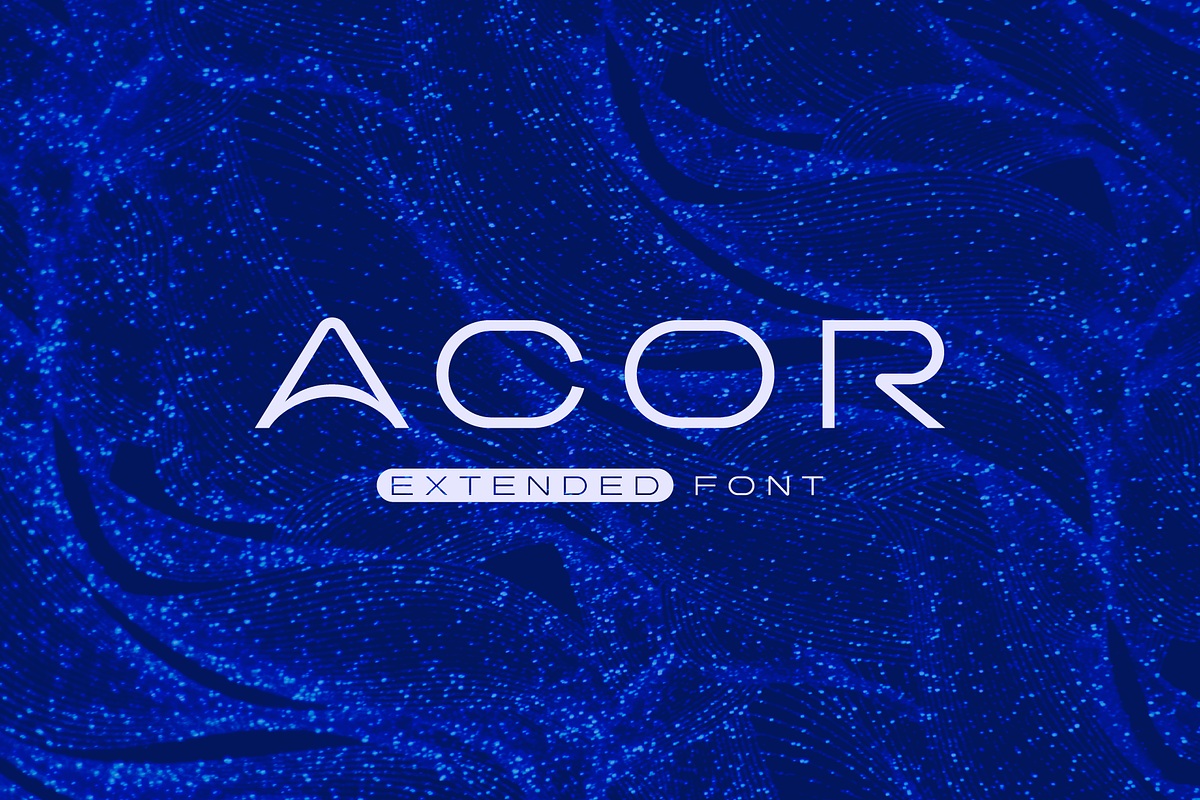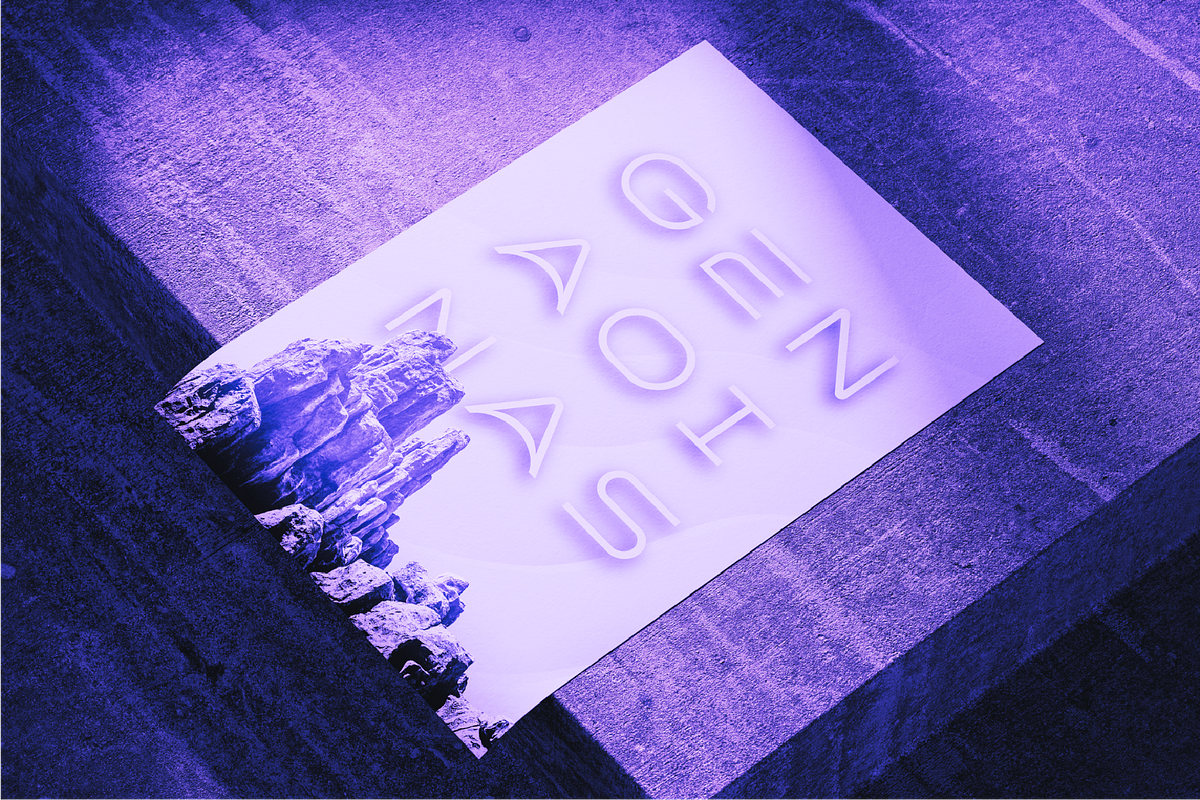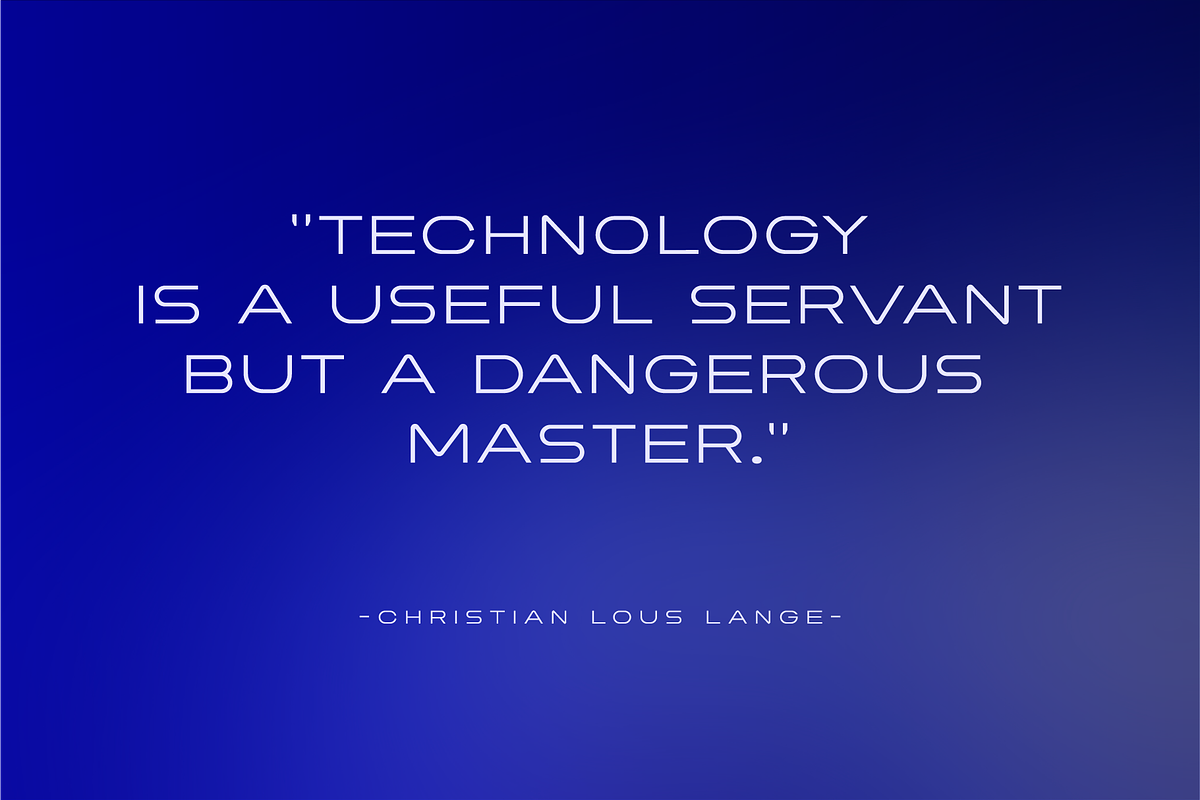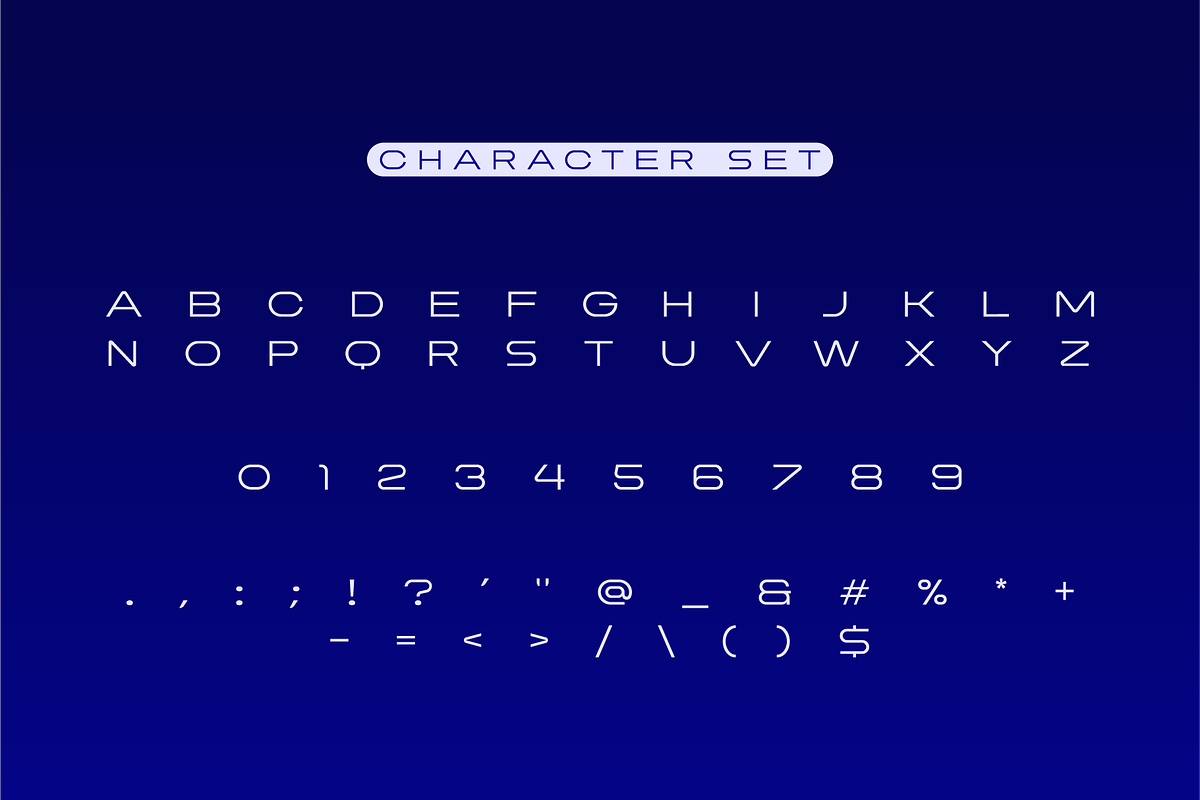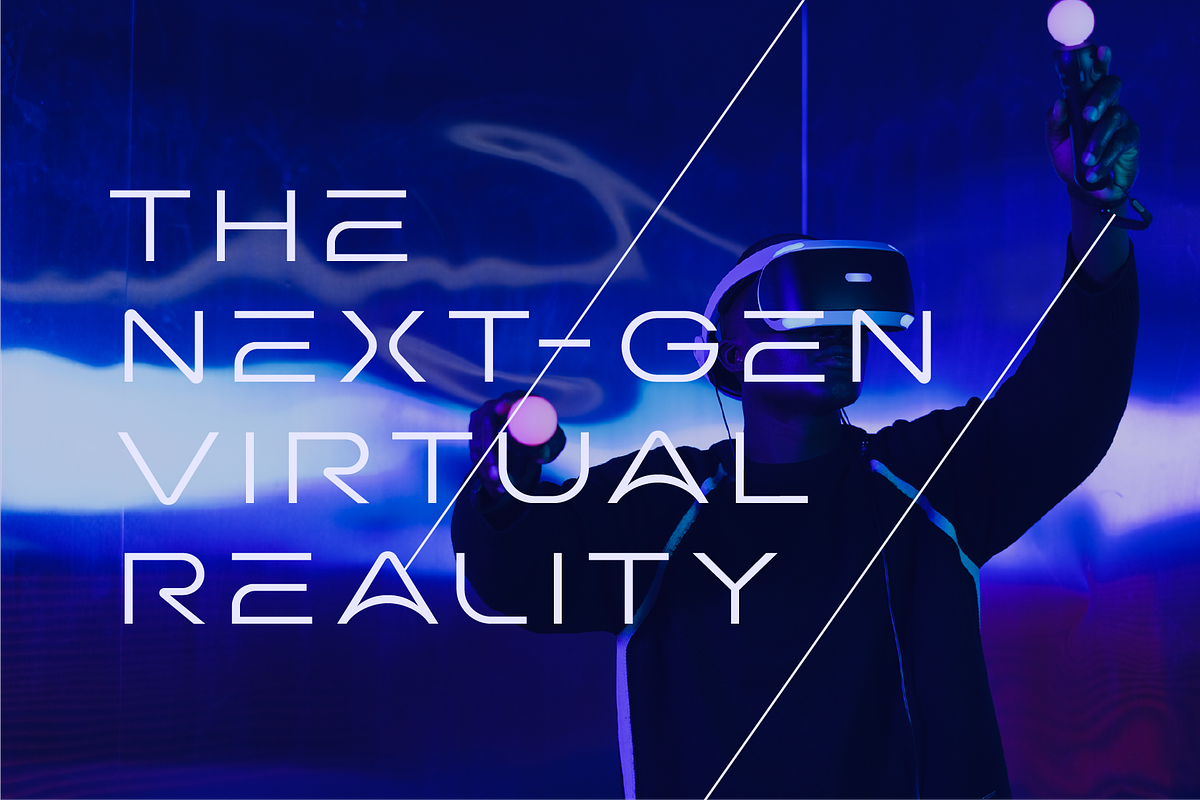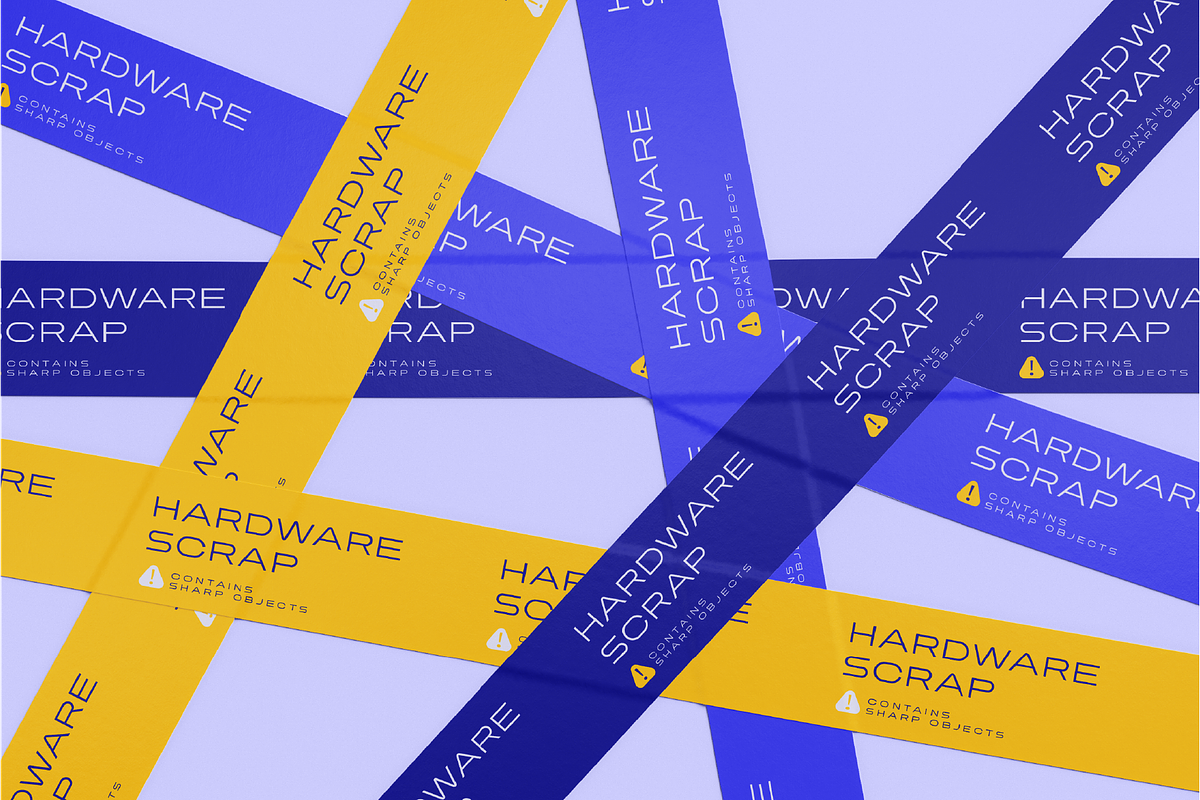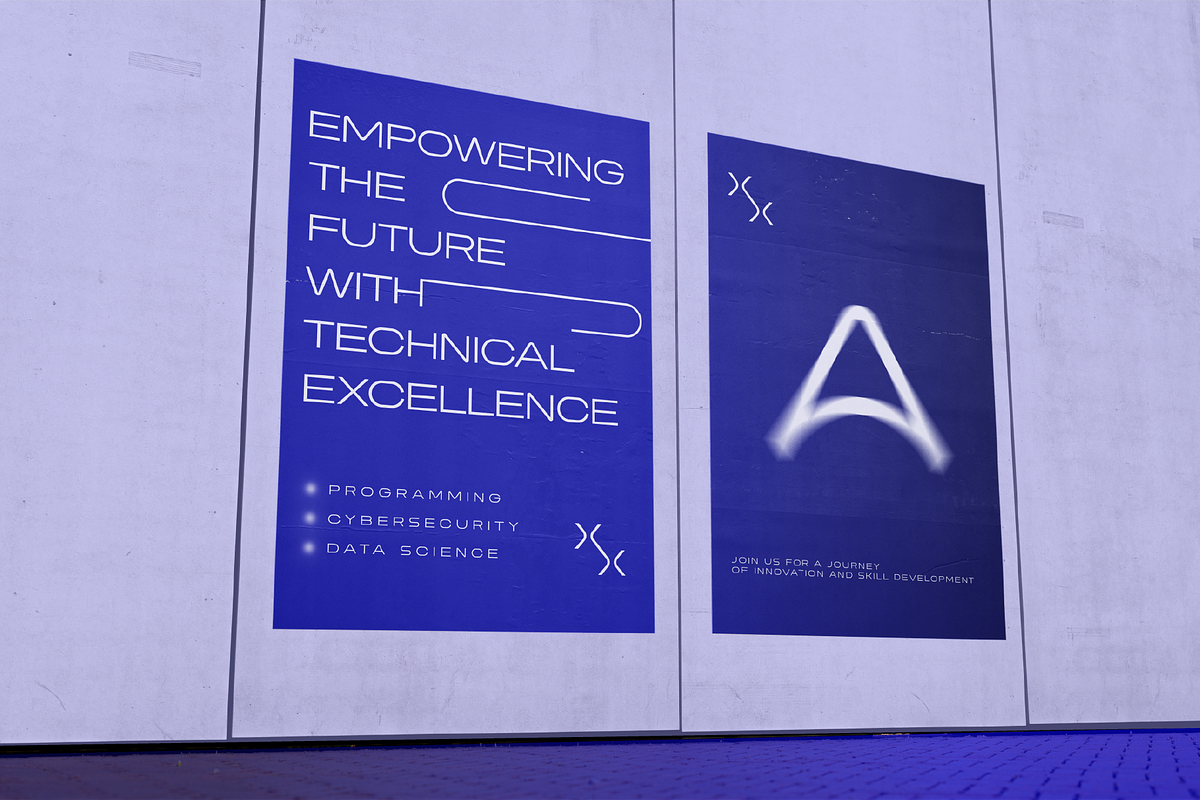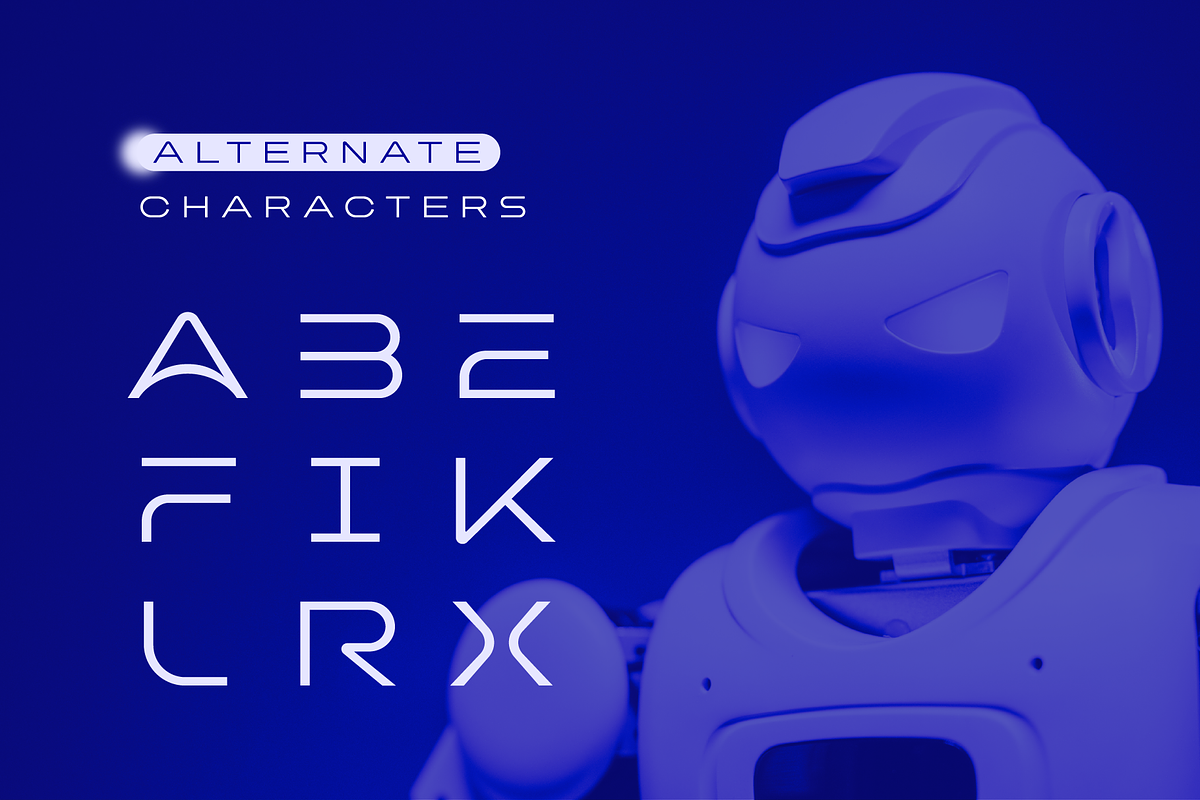
Acor Futuristic Clean Extended Font
Acor Extended font is a meticulously designed typeface that embodies the essence of modernity and innovation. This clean extended font features sleek and streamlined aesthetics and boasts a design that is both cutting-edge and stylish. Acor sci-fi font is ideal for futuristic narratives that need a font reflecting their imaginative worlds.